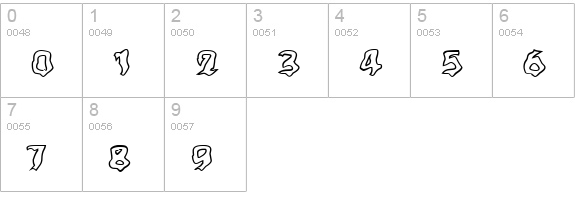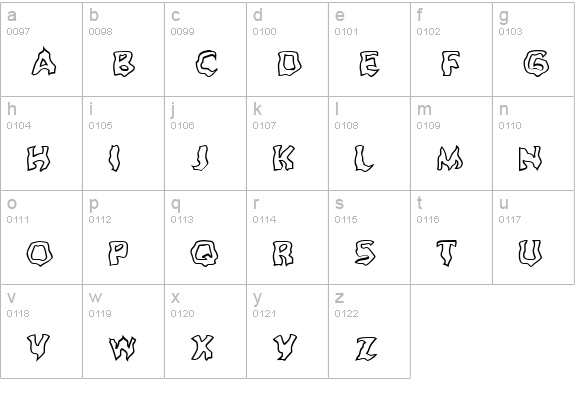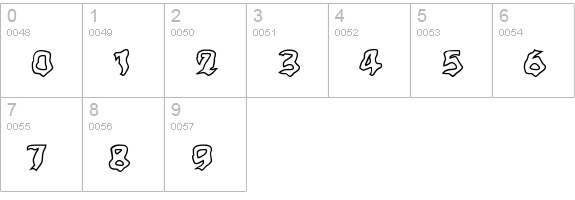
Introducing Ghoul Outline font, a spooky and stylish typeface perfect for all your Halloween-themed projects. This font features a unique outline design that adds a touch of eerie charm to any text. With its bold and eye-catching appearance, Ghoul Outline font is sure to make a statement in your designs. The best part? Ghoul Outline font is completely free to download at FontsMarket.com! Whether you're creating party invitations, posters, or social media graphics for the Halloween season, this font is a must-have addition to your collection. Embrace the darkness and add a touch of mystery to your designs with Ghoul Outline font today.